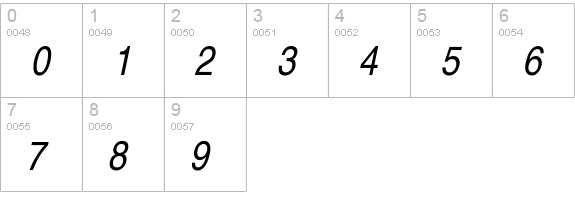
Alps-Condensed Italic is a distinctive, condensed-width, italic variant in the Alps typeface family \xE2\x80\x94 well suited to design and typography projects.
Alps-Condensed Italic is a sleek and modern font that embodies elegance and sophistication. Its italicized style adds a touch of flair and personality to any design project. The condensed design allows for more text to fit in limited spaces without compromising readability. Perfect for headlines, logos, and branding materials, Alps-Condensed Italic exudes a sense of refinement and professionalism. The best part? This exquisite font is available for free download at FontsMarket.com. Now you can elevate your designs with this premium typeface without any cost. Don't miss out on the opportunity to enhance your projects with Alps-Condensed Italic – get your free download today!